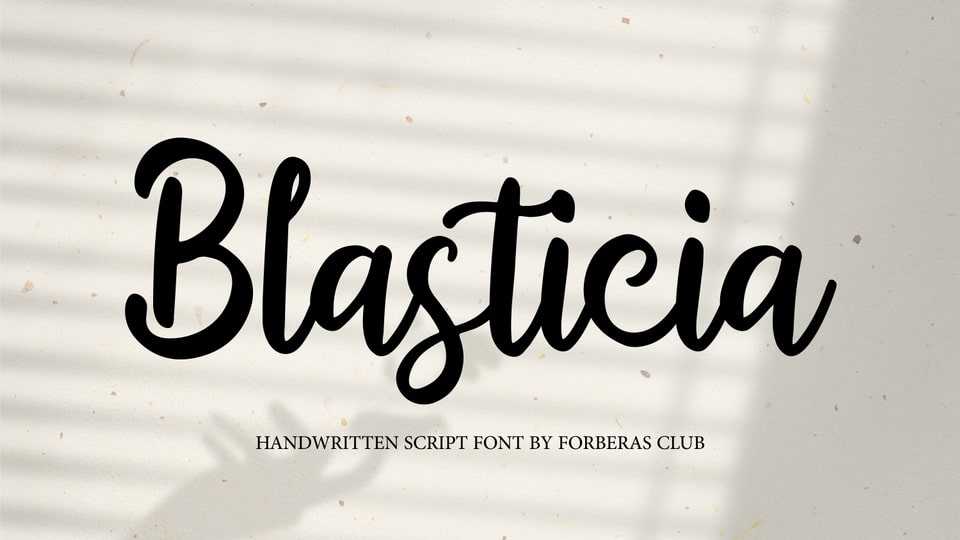
Download Blasticia font, a simple script typeface inspired by modern handwriting. Blasticia is especially designed for casual, elegant, feminine projects.